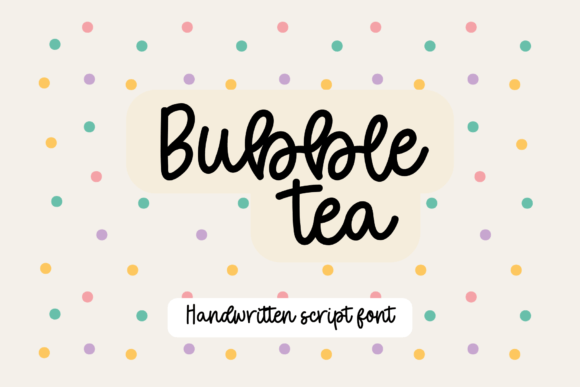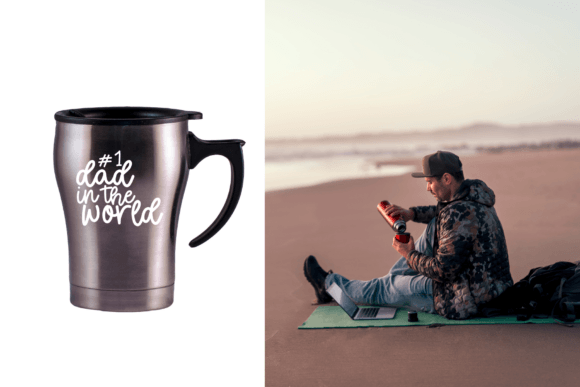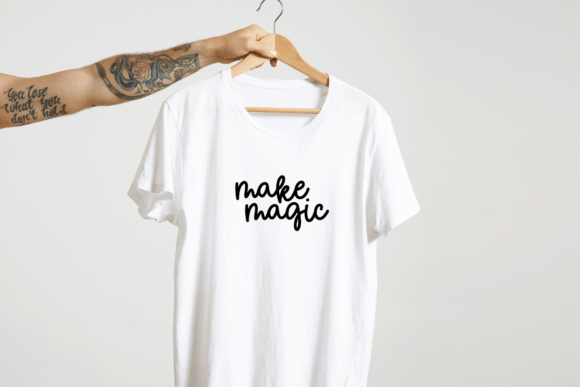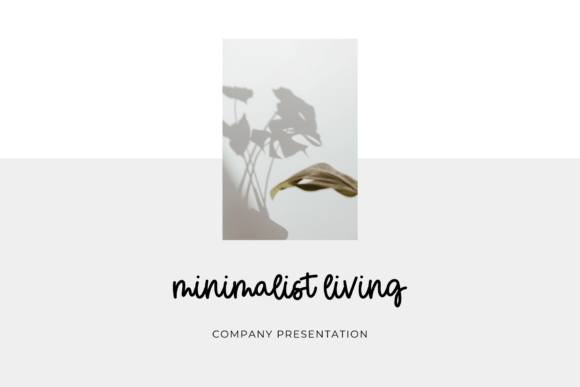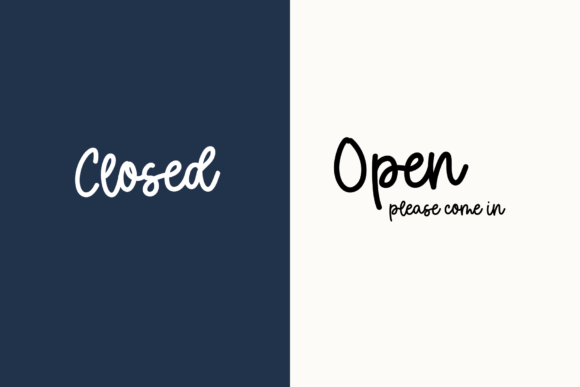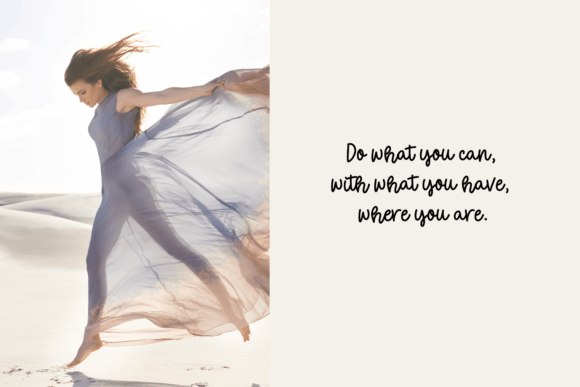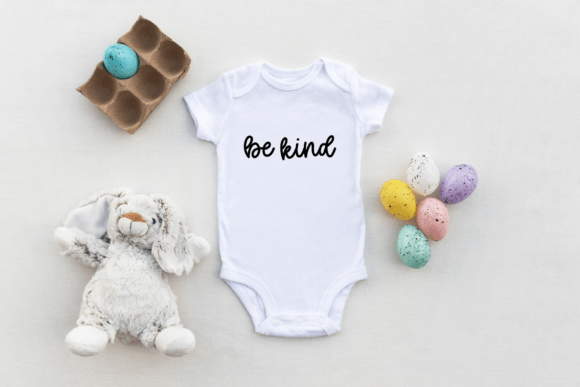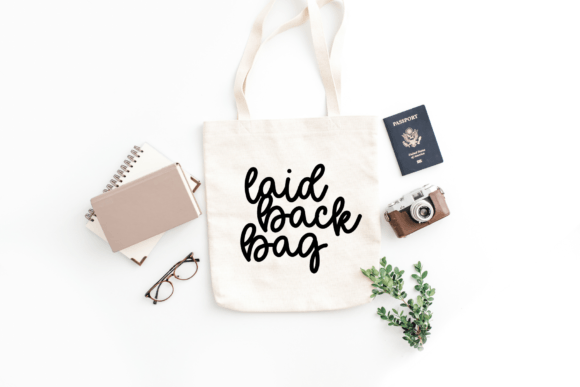
Bubble Tea Font
Add a beautiful, handcrafted look to your work with the fabulous Bubble Tea script font! A hand-drawn elegant font that will add a unique touch to your work. Perfect for branding, invitations, blogs, and planners. Adding an authentic hand-lettered touch to your projects couldn’t be easier!